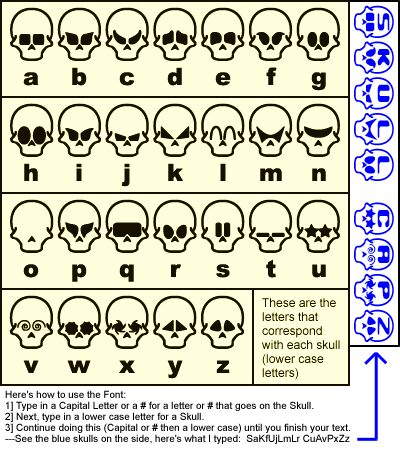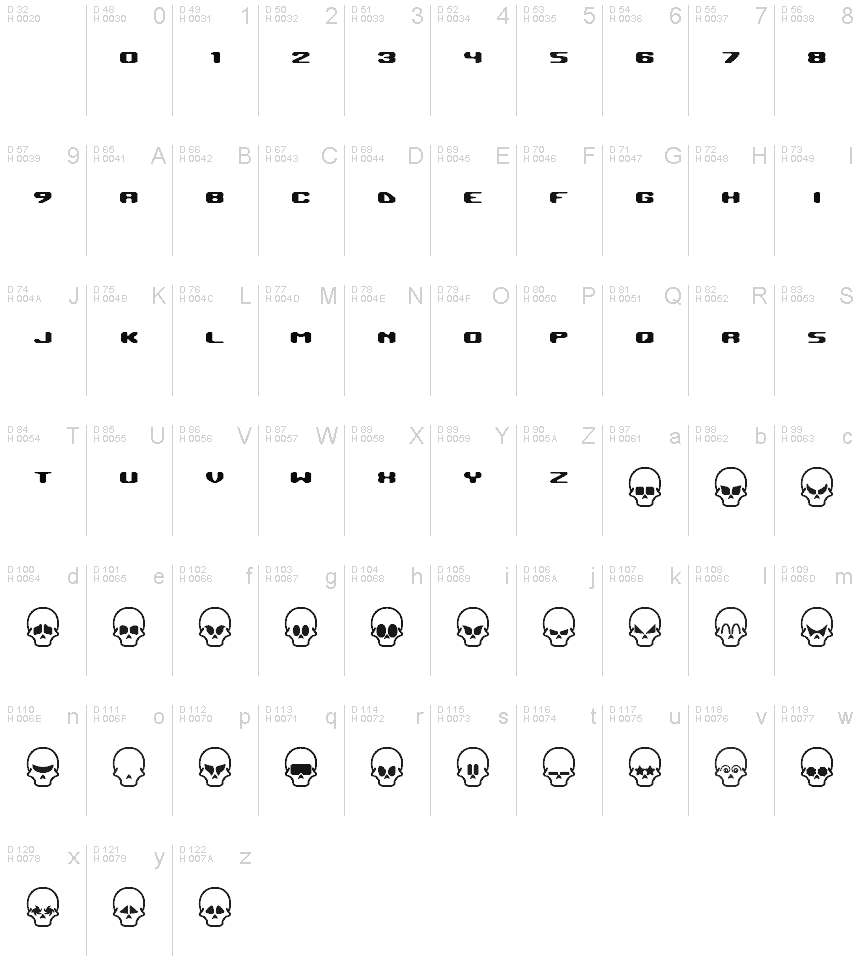
Skull Capz BRK
Skull Capz, a creation by ÆNIGMA FONTS, stands out as a striking dingbat font that captures attention with its human skull-inspired glyphs. Each character in this collection is designed with a unique twist on the classic skull symbol, infusing personality and attitude into the visual language. The bold lines and creative interpretations of the skull motif make Skull Capz an excellent choice for artistic projects looking to add an edgy or gothic flair.
The aesthetic appeal of Skull Capz lies in its versatility—while it has an inherent darkness due to its subject matter, the playful variations allow for a wide range of emotional expressions within design compositions. From graphic tees to concert posters, skateboards to digital art, this font invites designers to explore themes of mortality, humor, and counterculture with a graphic punch.
Skull Capz's suitability extends beyond mere novelty; it can serve as an impactful element in branding or as iconic symbols within user interfaces where conveying strong messages is key. Its ability to stand out makes it particularly effective for projects that aim to leave a lasting impression through bold visual storytelling.
The aesthetic appeal of Skull Capz lies in its versatility—while it has an inherent darkness due to its subject matter, the playful variations allow for a wide range of emotional expressions within design compositions. From graphic tees to concert posters, skateboards to digital art, this font invites designers to explore themes of mortality, humor, and counterculture with a graphic punch.
Skull Capz's suitability extends beyond mere novelty; it can serve as an impactful element in branding or as iconic symbols within user interfaces where conveying strong messages is key. Its ability to stand out makes it particularly effective for projects that aim to leave a lasting impression through bold visual storytelling.